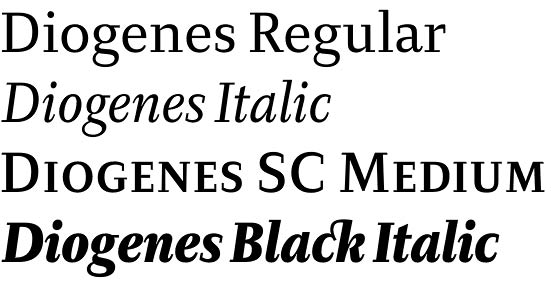
Diogenes font
Diogenes font by Ludwig Übele (Ludwig Type foundry) is a charming sharply chiselled Serif family. It has strong visual presence and a distinctive type structure with solid basic letter shapes and elegant fine serifs. Diogenes typeface is both graceful and legible, and is particularly suitable for editorial projects like books, newspapers, and magazines, at any text size.
Diogenes font family consists of five weights from Light to Black, each with Italic and Small Caps. Three demo fonts are offered for FREE: Diogenes DEMO Regular, Diogenes DEMO Italic, and Diogenes DEMO Bold. Diogenes desktop and web fonts come with a plenty of OpenType features for a professional typography performance and a greater designers freedom. You can take advantage of options such as Case Sensitive Forms, All Small Caps, Alternate ampersand, Ligatures, Discretionary Ligatures, Contextual Alternates, Lining Figures, Tabular Figures, Slashed zero, Arbitrary Fractions, Superscript/superiors, Subscript/inferiors.
Diogenes font family is the latest project by the German designer Ludwig Übele – the founder of the Berlin based Ludwig Type foundry. It was established in 2007 and since then it has been working in the field of modern type design, offering high quality fonts like: Riga Screen font, Riga font, Daphne Script font, Marat font.